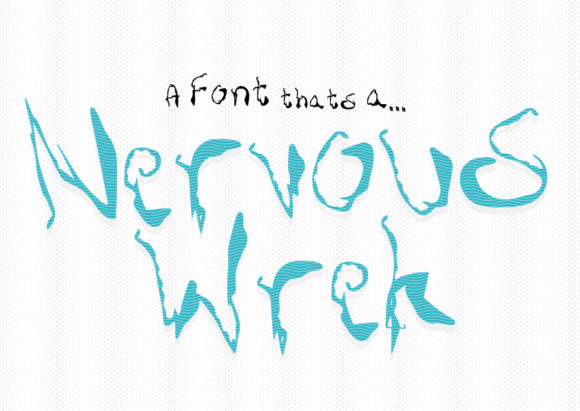
Step into a realm of infectious pandemonium with Nervous Wrek, a script font that mirrors the frantic energy of a whirlwind. Picture this: a rollercoaster ride of thick and thin brushstrokes, each line pulsating with the raw, frenetic energy of a frayed nerve. It's like capturing the essence of a heart-pounding chase scene, translated into a font.
Unleash the pandemonium and captivate your audience with Nervous Wrek. This font is not for the faint-hearted; it's a bold statement that demands attention. Its manic nature will electrify your designs, adding a touch of thrilling chaos to social media posts, event flyers, and any project yearning for a burst of unbridled energy.
With Nervous Wrek, you'll bring a frenetic edge to your creations, leaving your audience mesmerized and enthralled. It's the perfect font to convey a sense of urgency, excitement, or even a touch of delightful madness. Let the pandemonium reign, let Nervous Wrek speak for you, and watch as your designs transform into electrifying expressions of unhinged creativity.
Dive into a maelstrom of visual delight and let Nervous Wrek unleash its infectious energy upon your designs. It's time to turn up the pandemonium and leave your audience breathless with this exhilarating font. Embrace the chaos and watch your projects come alive with the infectious energy of Nervous Wrek.
The pandemonium awaits, are you ready to embrace it?